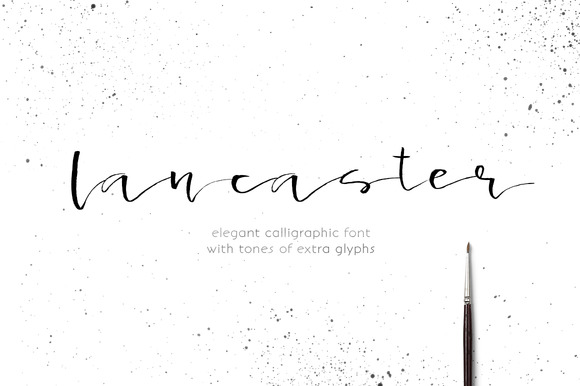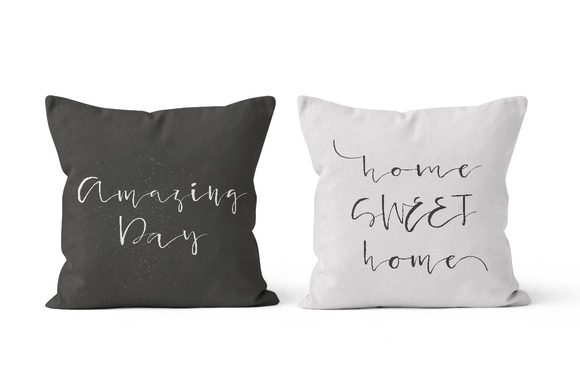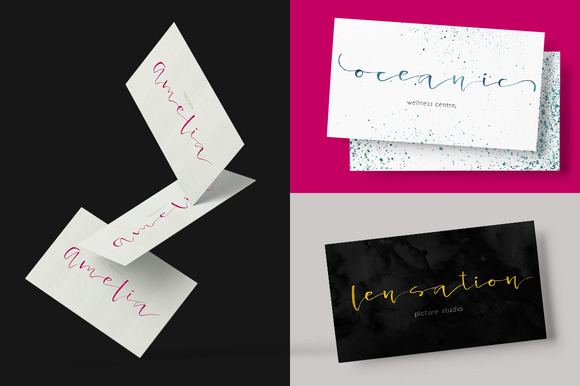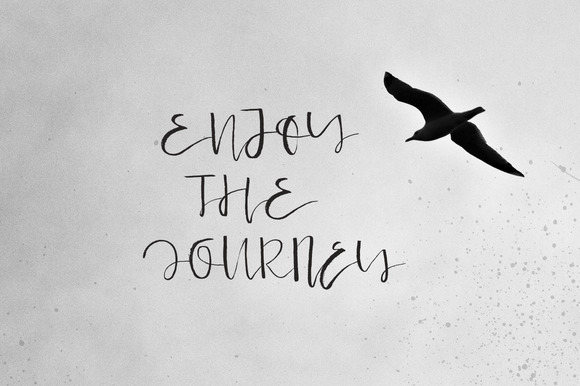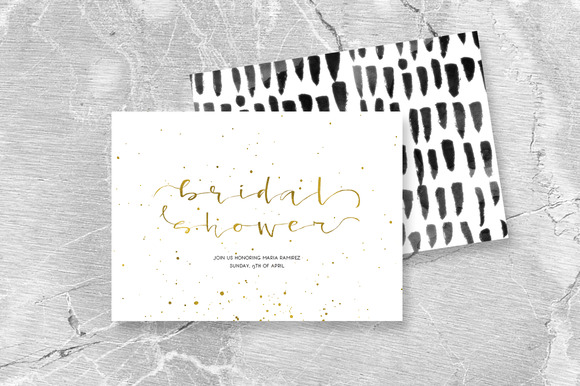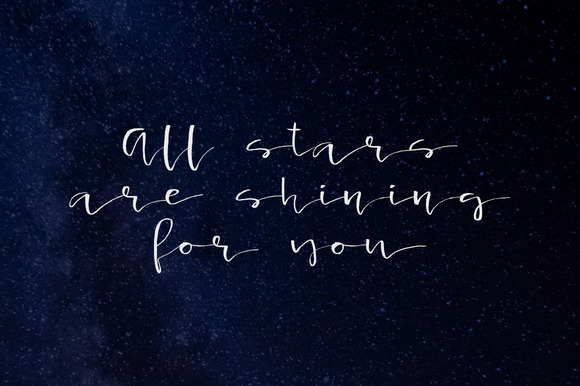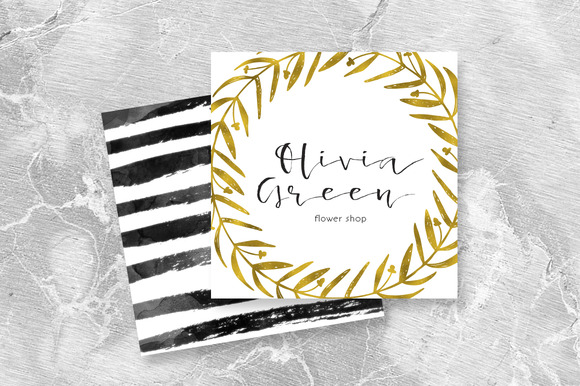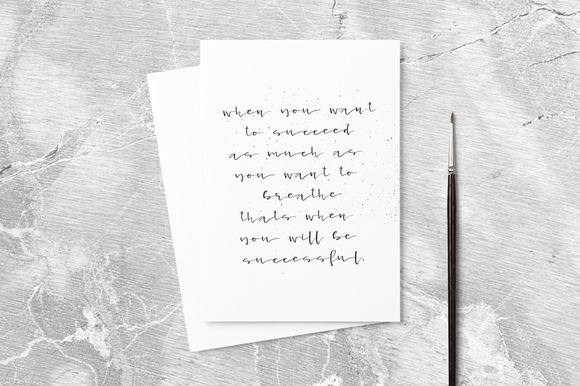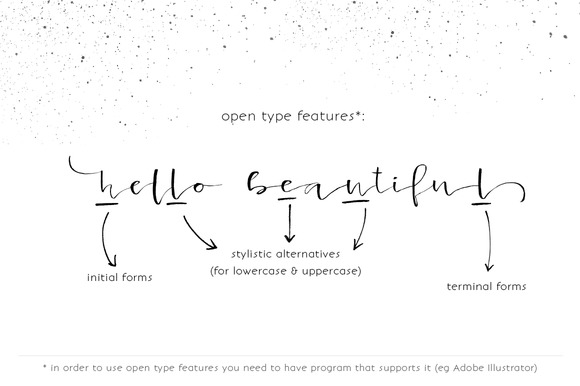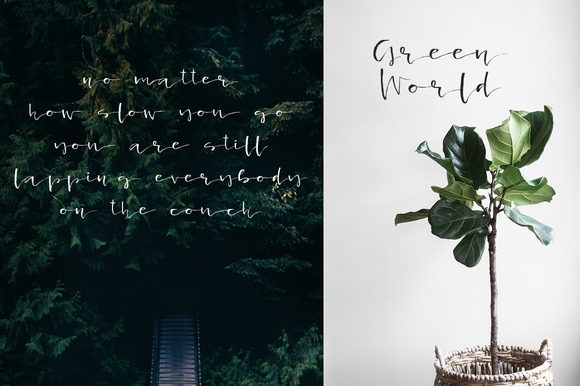
Lancaster Font
About Lancaster Font
Lancaster is a very fine calligraphic font. It features sophisticated lines and swashes with makes it a great font for formal occasions.